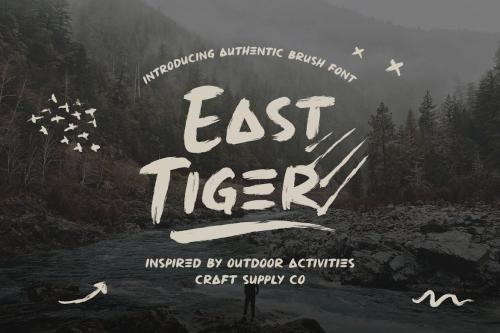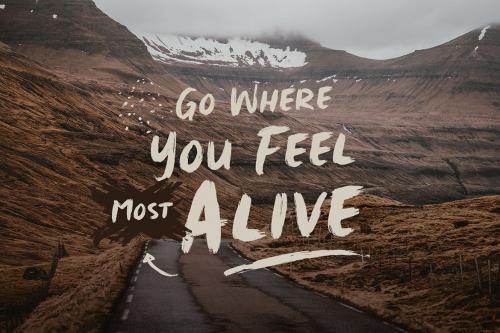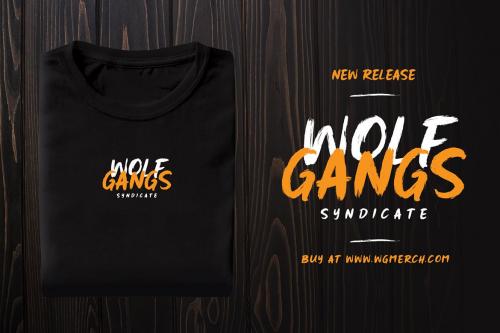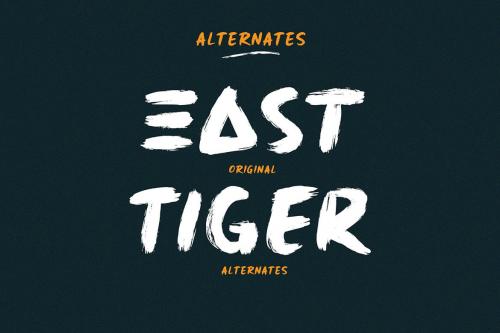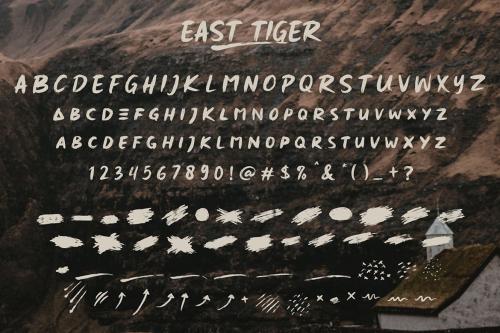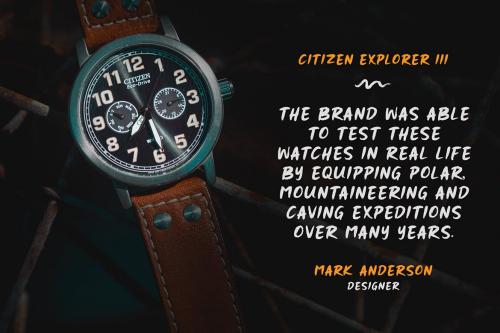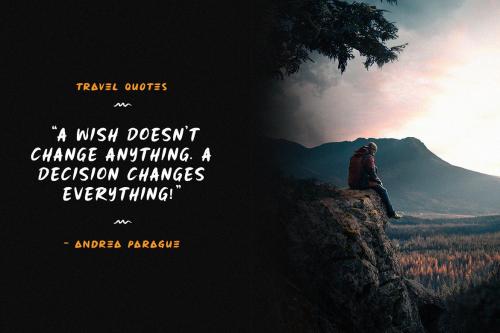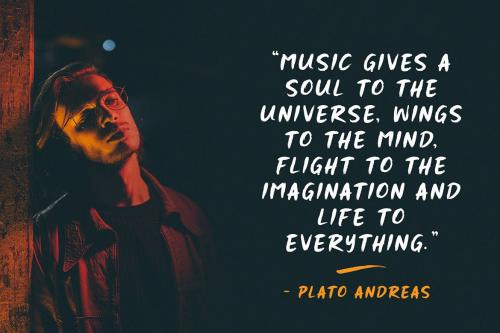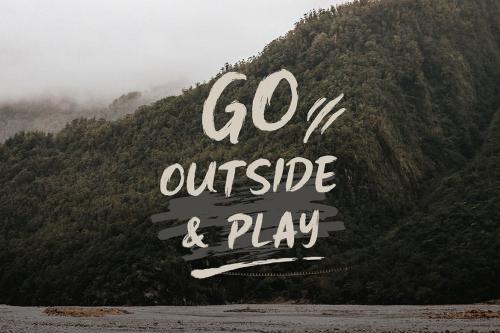
East Tiger - Authentic Brush Font
**Introducing New Font : East Tiger - Authentic Brush Font** **Introducing East Tiger - Authentic Brush Font**, we really like the diversity of colors. we also like something authentic, East Tiger - Authentic Brush Font is a attractive contemporary typeface drawn from scratch with brand-new, more vigorous detailing for multiple use. **East Tiger - Authentic Brush Font** is suitable for Logo, greeting cards, quotes, posters, branding, name card, stationary, design title, blog header, art quote, typography art, modern envelope lettering or book design. **East Tiger - Authentic Brush Font** also suitable for happening style like handdrawn design or watercolor design theme, craft design, any DIY project, book title, wedding font, pop vintage design, or any purpose to make our art/design project look pretty and trendy.
**Introducing New Font : East Tiger - Authentic Brush Font**
**Introducing East Tiger - Authentic Brush Font**, we really like the diversity of colors. we also like something authentic, East Tiger - Authentic Brush Font is a attractive contemporary typeface drawn from scratch with brand-new, more vigorous detailing for multiple use.
**East Tiger - Authentic Brush Font** is suitable for Logo, greeting cards, quotes, posters, branding, name card, stationary, design title, blog header, art quote, typography art, modern envelope lettering or book design.
**East Tiger - Authentic Brush Font** also suitable for happening style like handdrawn design or watercolor design theme, craft design, any DIY project, book title, wedding font, pop vintage design, or any purpose to make our art/design project look pretty and trendy.
**Features :**
1. All Caps Font + Alternates
2. Standard Ligatures
3. Numerals & Punctuations (OpenType Standard)
4. Accents (Multilingual characters) **(AÀÁÂÃÄÅCÇDÐEÈÉÊËIÌÍÎÏNÑOØÒÓÔÕÖUÙÜÚÛWYÝŸỲŸÆŒßÞ)**